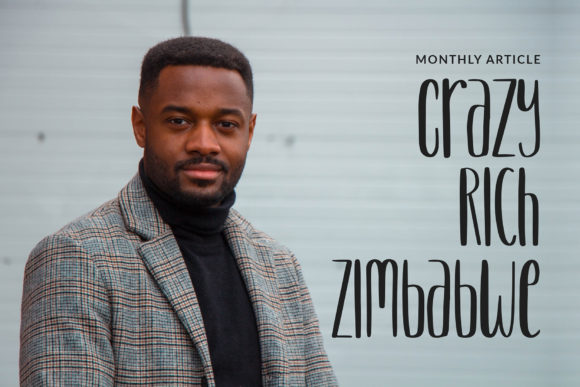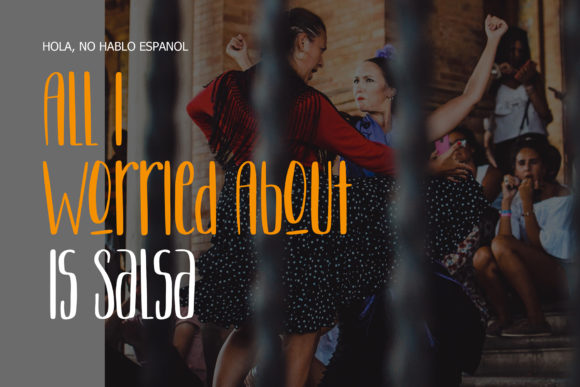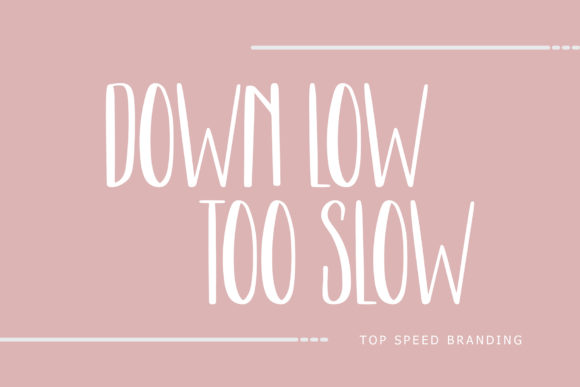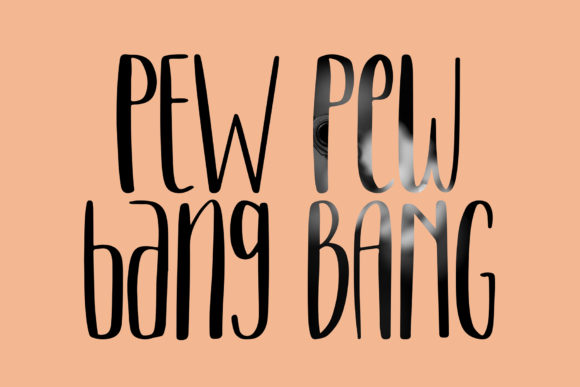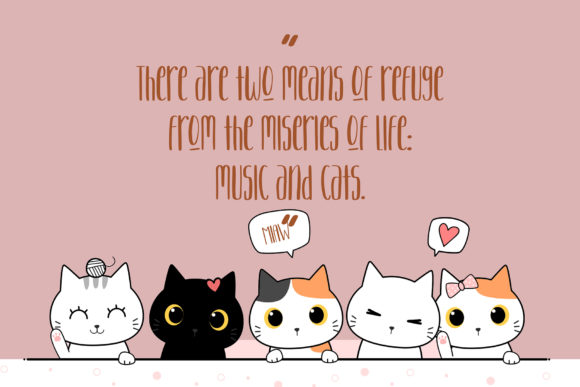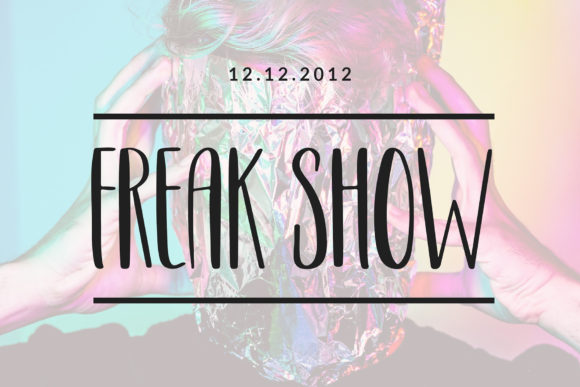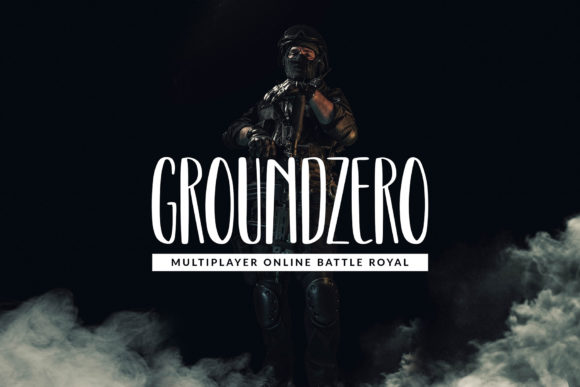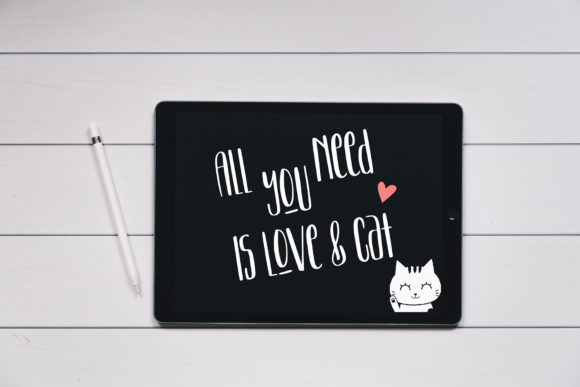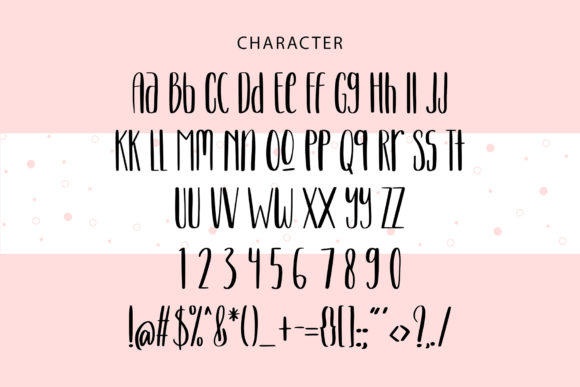
Kitten Lover Font
About Kitten Lover Font
Kitten Lover is a cute and quirky display font. It will add an incredibly joyful touch to your designs. Add this beautiful display font to each of your creative ideas and notice how it makes them stand out!